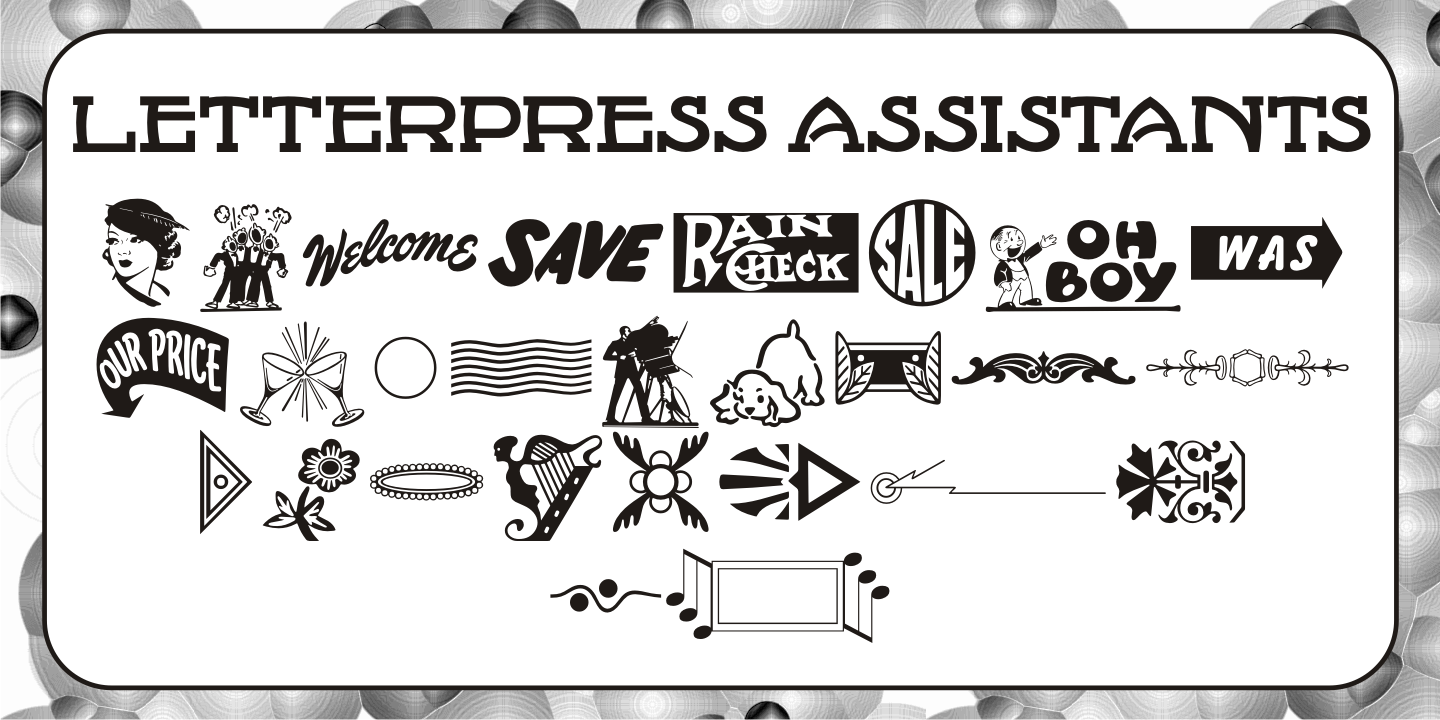
Letterpress Assistants
Letterpress Assistants JNL once again combines a selection of cartoons, embellishments, ornaments and sales helpers (all redrawn from vintage source material) into one handy digital font.